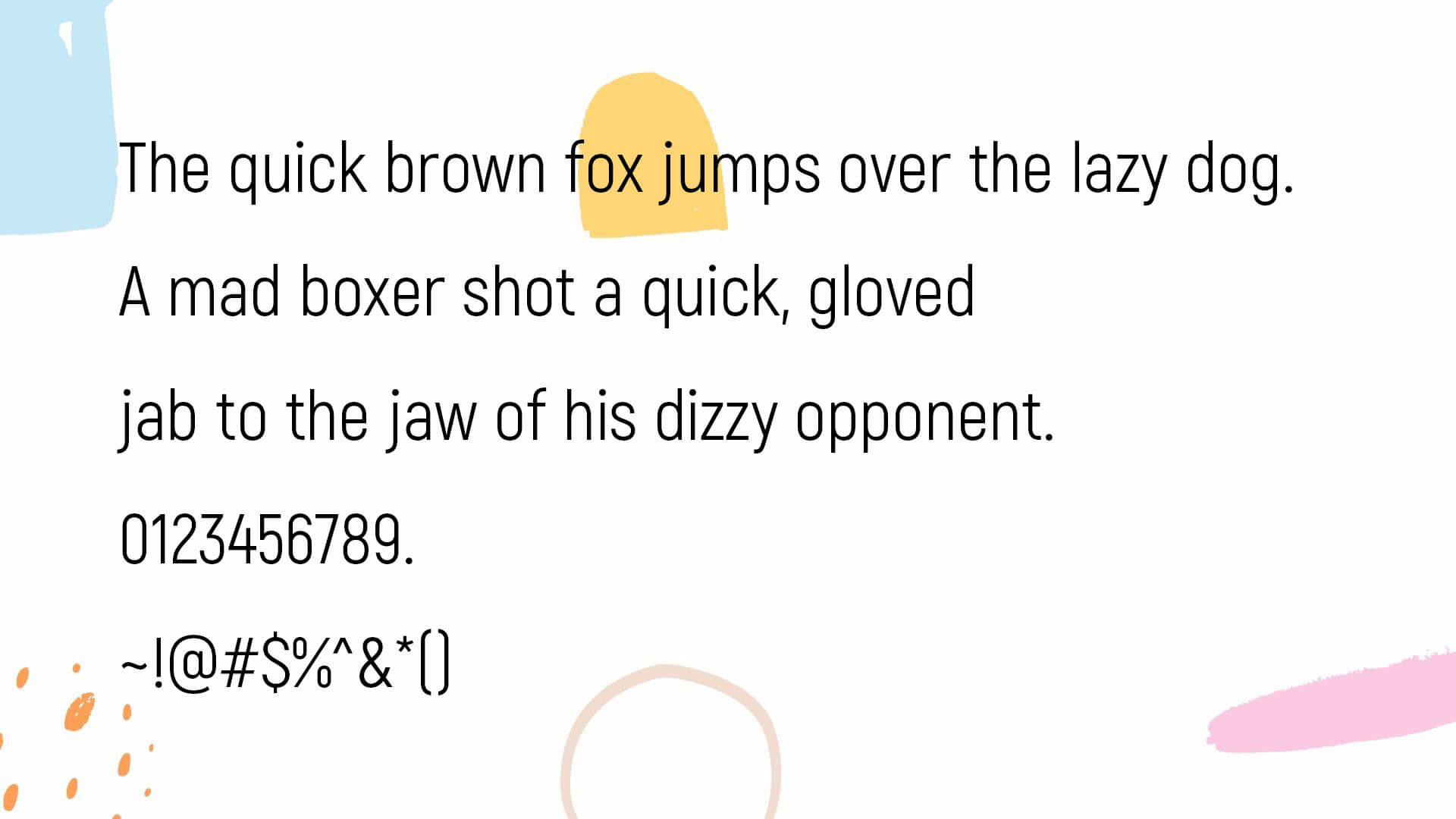
Akrobat Font is a contemporary addition to the extensive Sans-serif typeface family. It was created by the Bulgarian designer Plamen Motev.
This font comprises 8 weights from black to thin along with slight neo-grotesque and geometric aesthetics features.
This design’s narrow parts make it suitable for headlines and large-size shows. The geometrical shapes of this free typeface are also applicable for architecture editorial and product designs.